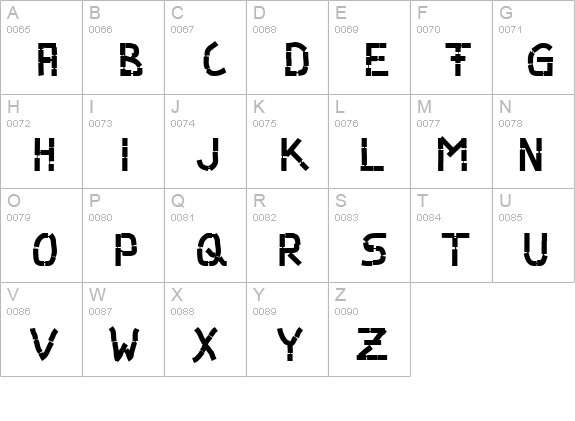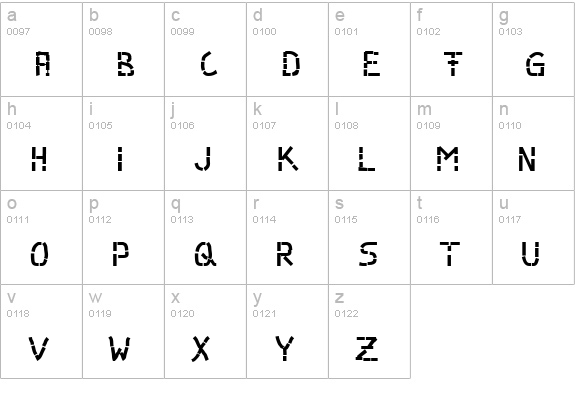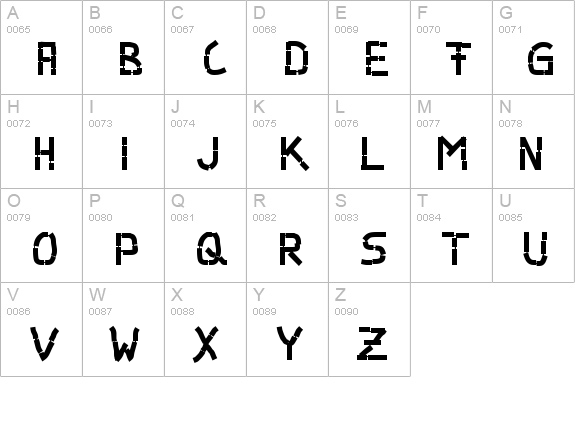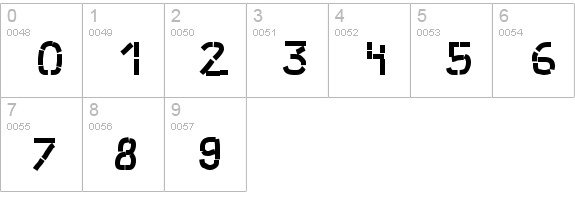
Parts Font Details
Parts font is a visually stunning and versatile typeface that seamlessly blends modern aesthetics with a touch of classic charm. This font is perfect for adding a unique and creative edge to any design project, whether it be a logo, website, or print materials. With its clean lines and intricate details, Parts font captivates the eye and captures attention. What sets Parts font apart from other fonts is not only its exceptional design, but also the fact that it is freely available to download at FontsMarket.com. This means that designers and creatives of all levels can access and utilize this remarkable font without any barriers or limitations. Whether you're a seasoned professional or a passionate beginner, Parts font empowers you to explore your creativity and bring your visions to life. The versatility of Parts font is another aspect that makes it a must-have in every designer's toolkit. It effortlessly adapts to various design styles and can be customized to suit any project's specific needs. With a wide range of weights and styles available, this font offers endless possibilities for creating stunning and impactful visuals. Additionally, Parts font boasts excellent legibility, ensuring that your message is conveyed clearly to your audience. Its well-balanced proportions and carefully crafted letterforms make reading a pleasure, enhancing the overall user experience. Whether you're looking to add a touch of elegance to your branding, make a statement with your headlines, or simply elevate your design game, Parts font is the ideal choice. Its timeless appeal and the fact that it is freely accessible to download at FontsMarket.com make it a valuable asset for any designer or creative enthusiast. So, why wait? Unleash your creativity with Parts font today and experience the freedom of limitless design possibilities.